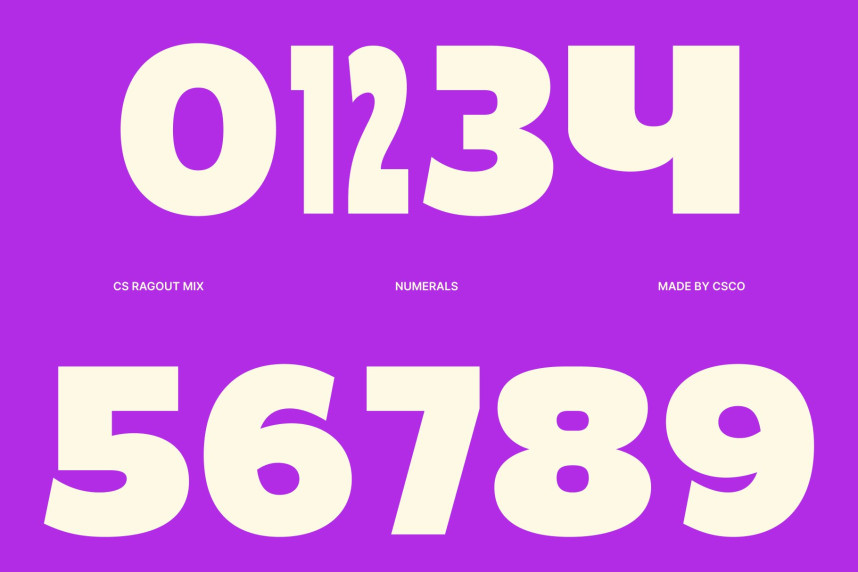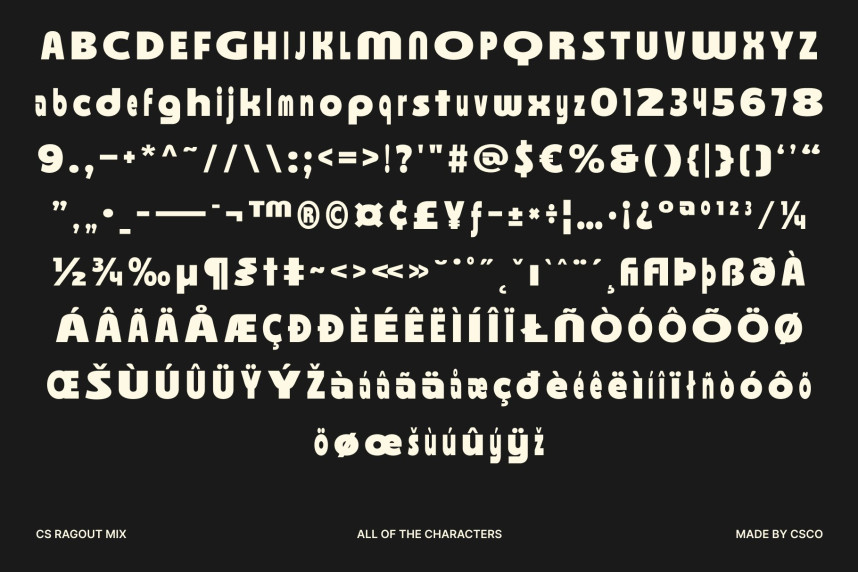
CS Ragout Mix Font
CS Ragout Mix Font – Bold Display Sans Serif: Funky Energy with Confident Modern Style
Bold Display Sans Serif with Mixed Style Character
This is a modern sans serif display font designed to combine bold strength with playful creative energy. Built with thick dynamic forms and expressive details, this typeface introduces a distinctive mixed-style concept that adds rhythm, contrast, and personality to every composition.